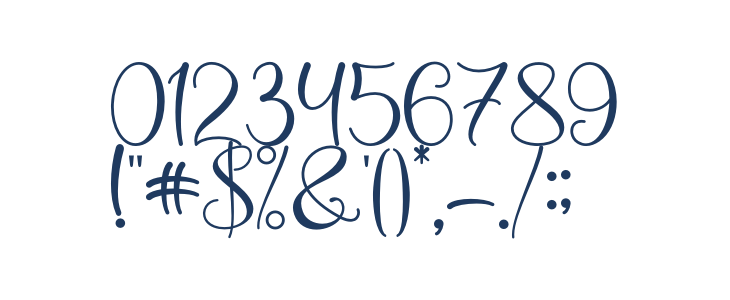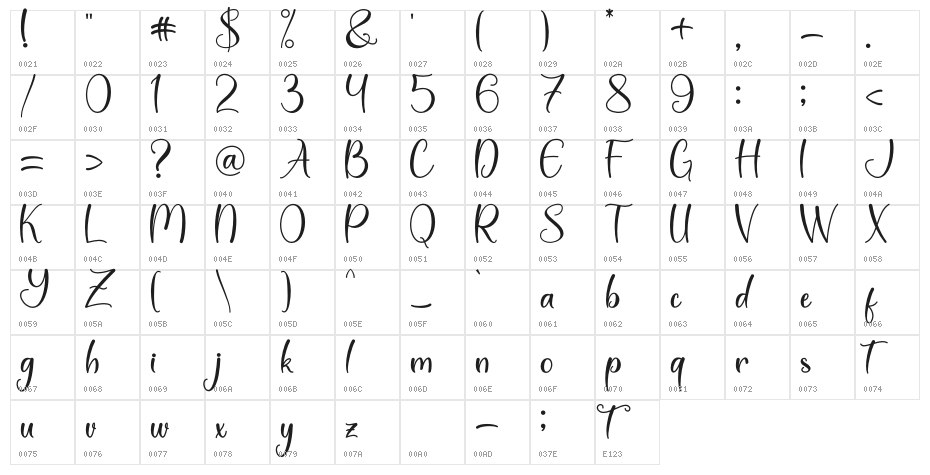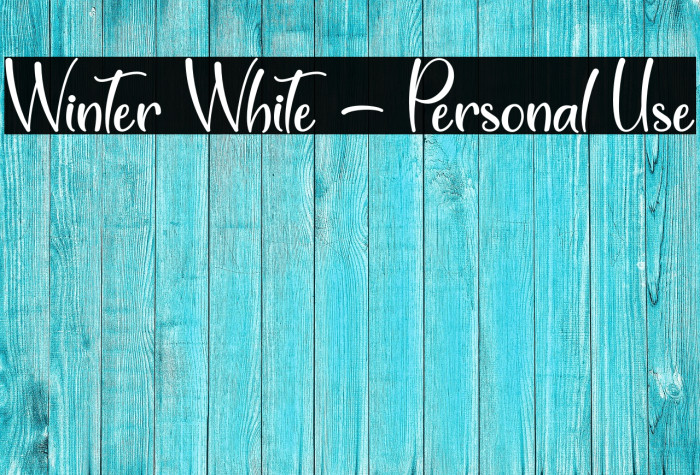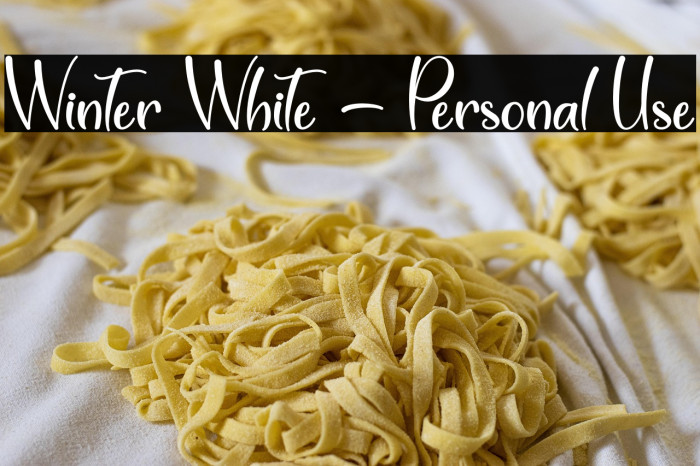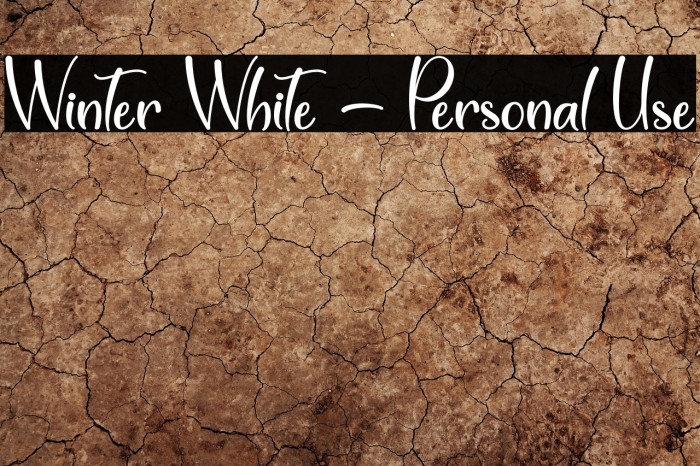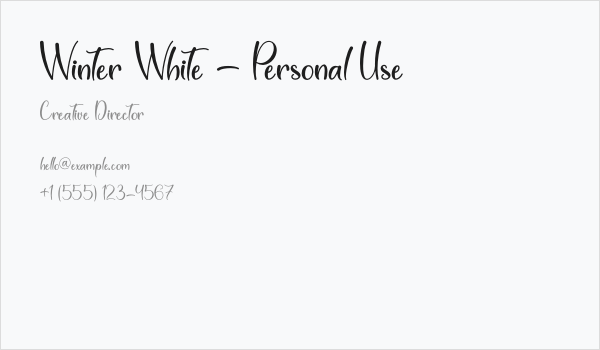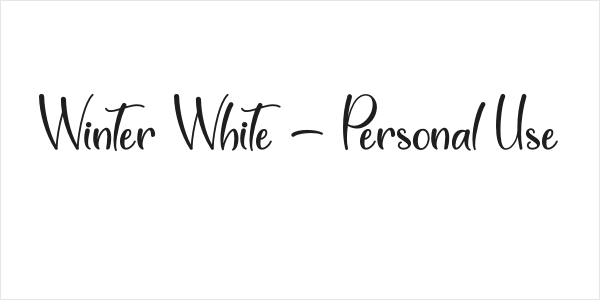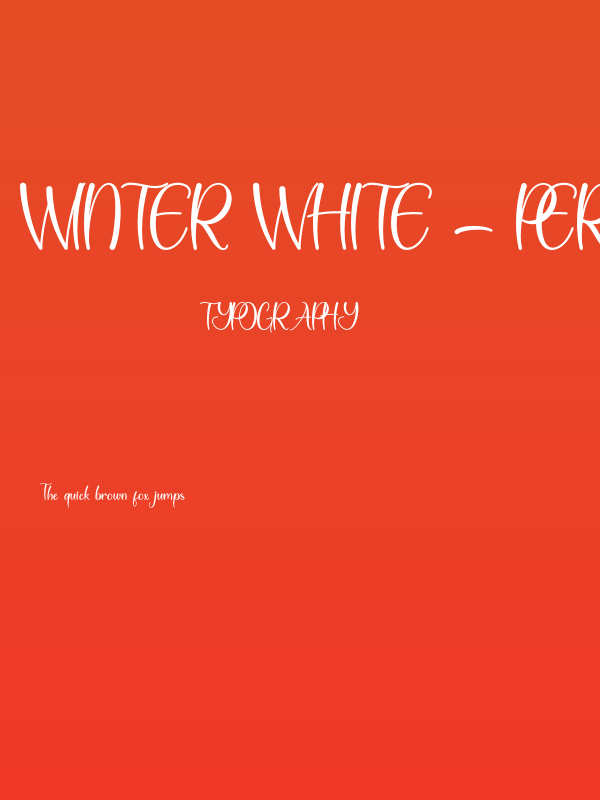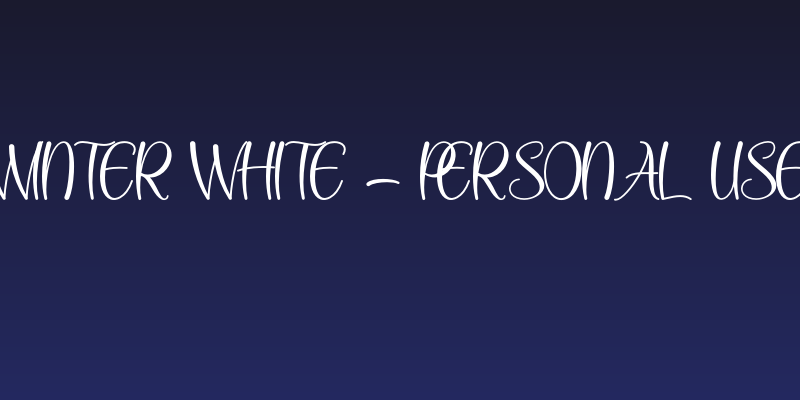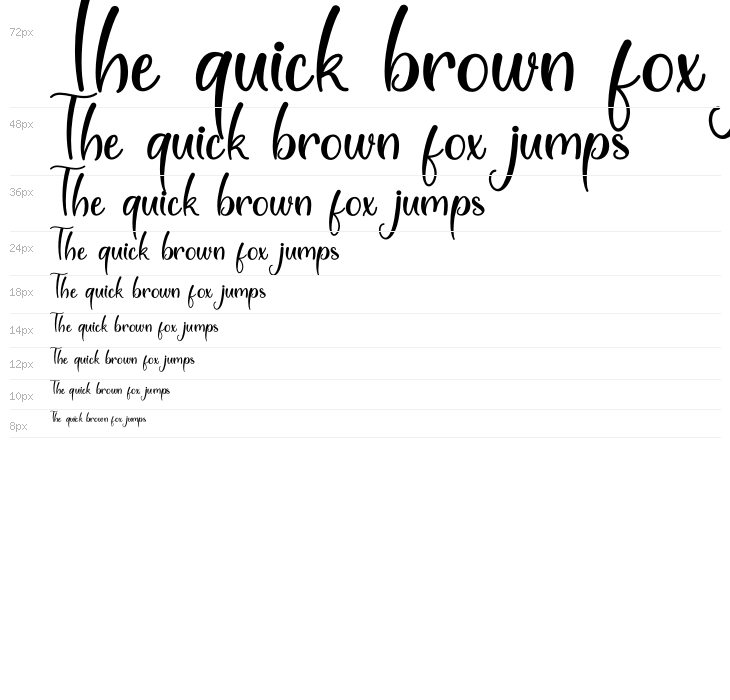
Winter White - Personal Use Font
Winter White - Personal Use Description
This font features a playful and elegant script style with a handwritten appearance. The uppercase letters are characterized by their flowing, cursive lines and varying stroke widths, giving them a dynamic and lively feel. The lowercase letters maintain a consistent style, with smooth curves and loops that enhance the font's fluidity. The numerals are equally expressive, with a whimsical touch that complements the overall design. Special characters are integrated seamlessly, maintaining the font's cohesive aesthetic. This font is ideal for projects that require a personal and artistic touch, such as invitations, greeting cards, and branding materials.
| Proposed Projects | Ideal for invitations, greeting cards, branding, and artistic projects. |